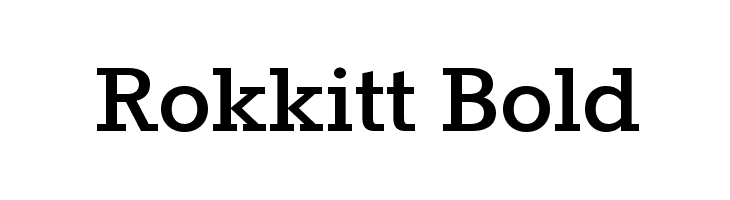
A bold, slab serif typeface with strong, squared serifs and minimal contrast.
A bold, serif font with strong strokes and classic appeal.
A classic slab serif font with strong geometric shapes and a balanced structure.
A robust slab serif typeface with balanced spacing and clear readability.
A modern slab serif font with strong geometric serifs and balanced proportions.